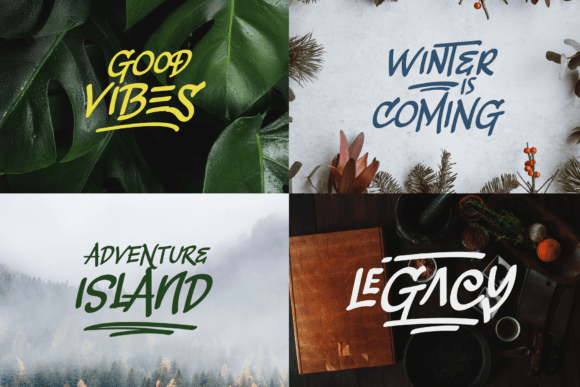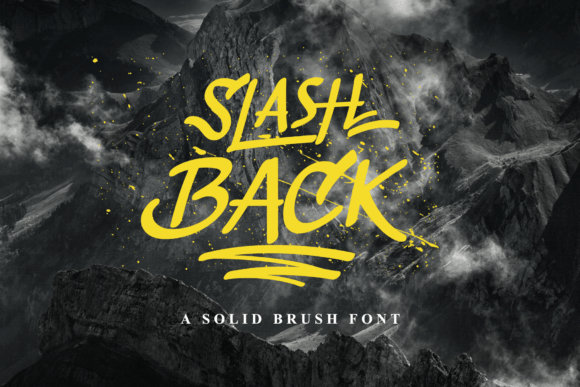
Freebie Wednesday: Slashback Font
Slashback Font by Arterfak Projects is a cool brush font, ideal for use in a wide range of relaxed and casual project types. This font comes complete with swashes so you can create hand-lettered looking projects for use in both digital and print applications. Slashback Font is only free for a limited time (just 5 days!)